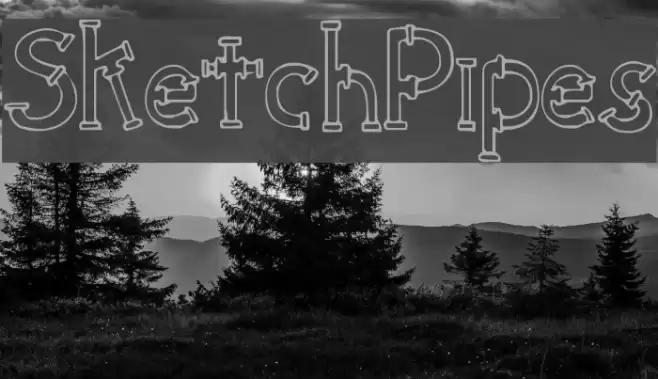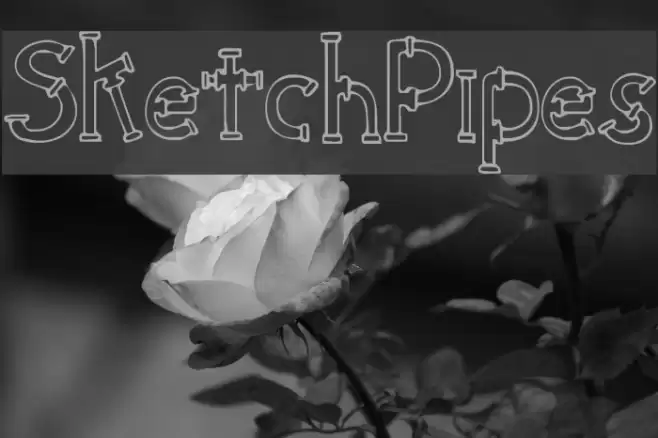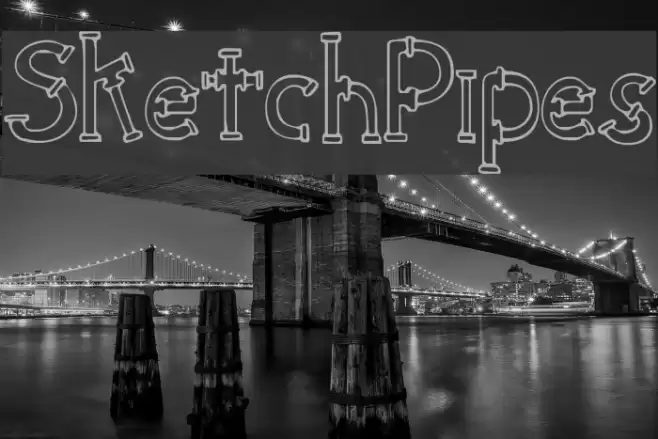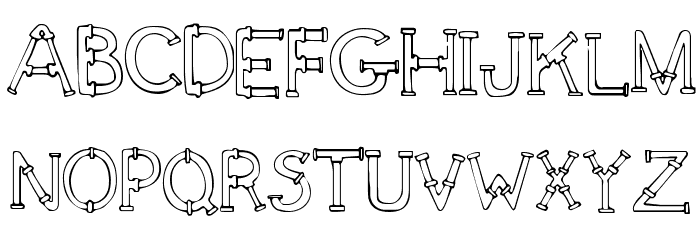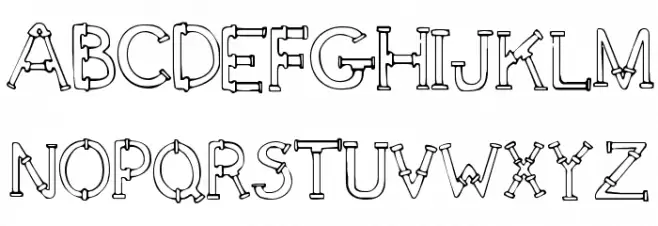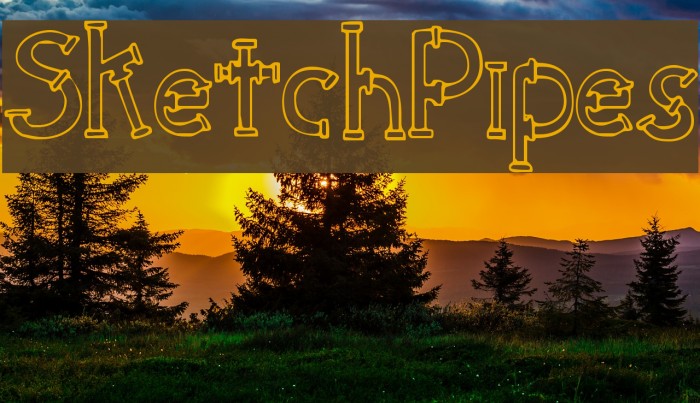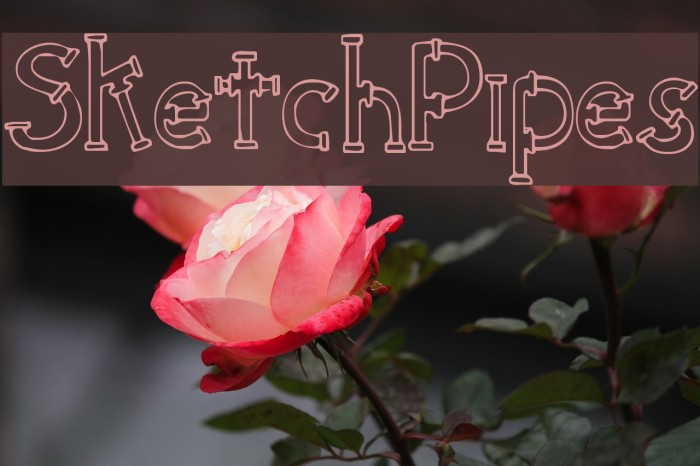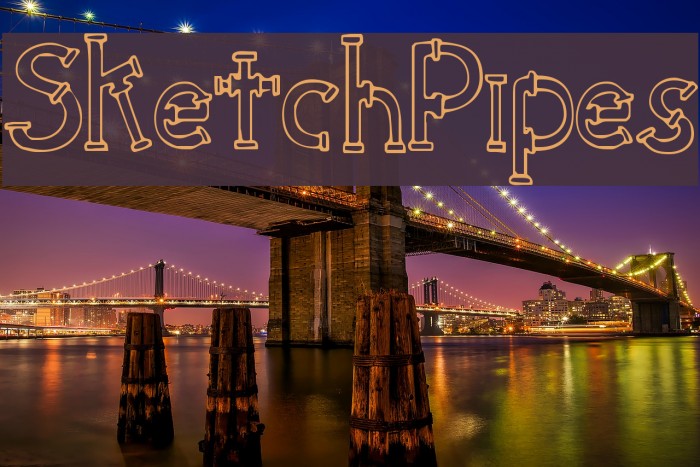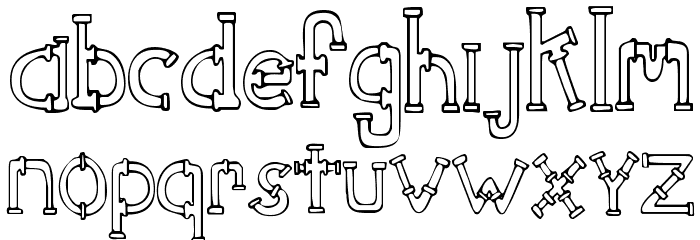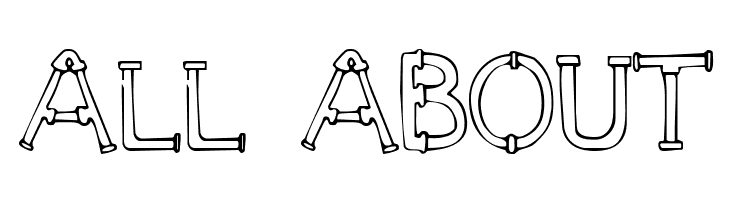
SketchPipes Font
SketchPipes Description
This font features a unique and playful design that mimics the appearance of interconnected pipes. Each character is constructed with a series of lines and curves that resemble plumbing pipes, giving it a distinct industrial and mechanical feel. The letters are bold and have a consistent stroke width, which adds to the robust and sturdy appearance. The font maintains a uniform height across both uppercase and lowercase letters, ensuring readability while retaining its decorative style. The special characters are creatively integrated into the design, maintaining the pipe-like theme throughout. This font is ideal for projects that require a fun and quirky touch, such as children's books, creative posters, or themed event invitations.
A playful, pipe-themed font with a bold, industrial design from Uncategorized fonts.
- Proposed Projects: Ideal for children's books, creative posters, themed event invitations, and playful branding.